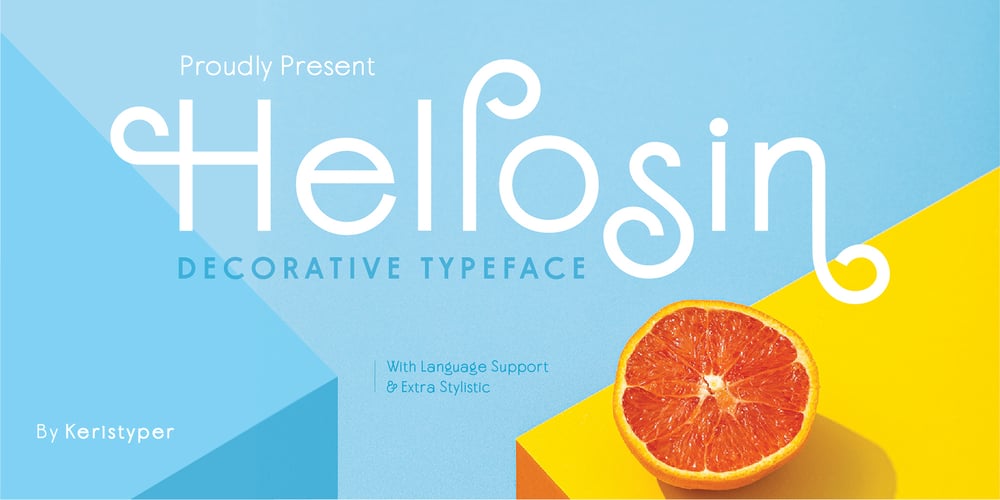
Hellosin Font Family was designed by Tezar Tantular and published by Keristyper Studio. Hellosin contains 1 styles and family package options. Hellosin is a sans serif-based typeface that has curly and elegant looks with a bunch of alternates that will make your design even more stunning and stand out. This font is good for logo design, Social media, Movie Titles, Books Titles, short text even long text letters, and good for your secondary text font with sans or serif.Featured: Standard Uppercase & Lowercase Numeral & Punctuation Multilingual : ä ö ü Ä Ö Ü ß ¿ ¡ Alternate & Ligature PUA encoded We recommend programs that support the OpenType feature and the Glyphs panel such as Adobe applications or Corel Draw. so you can use all the variations of the glyphs. Hope you enjoy our fonts!